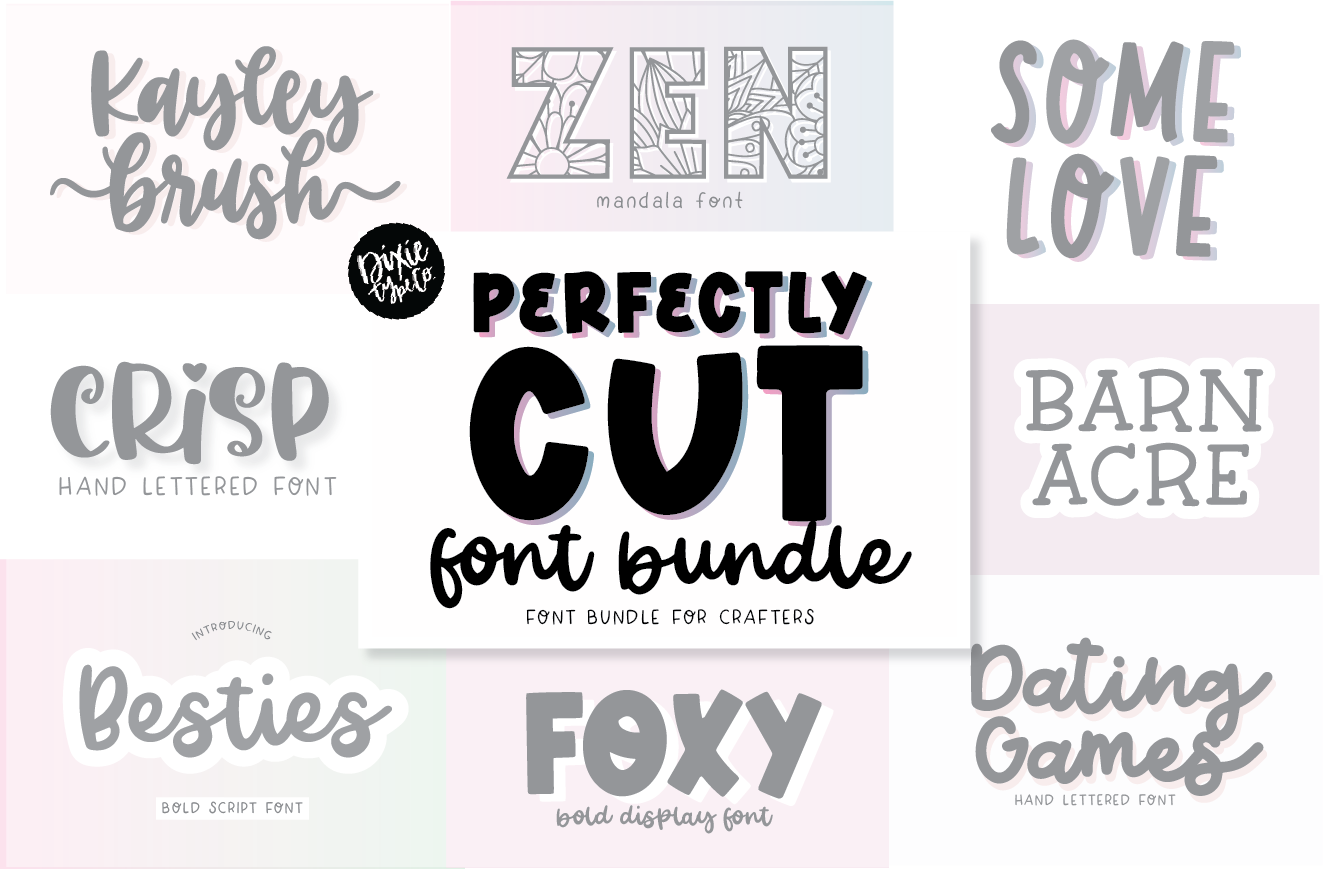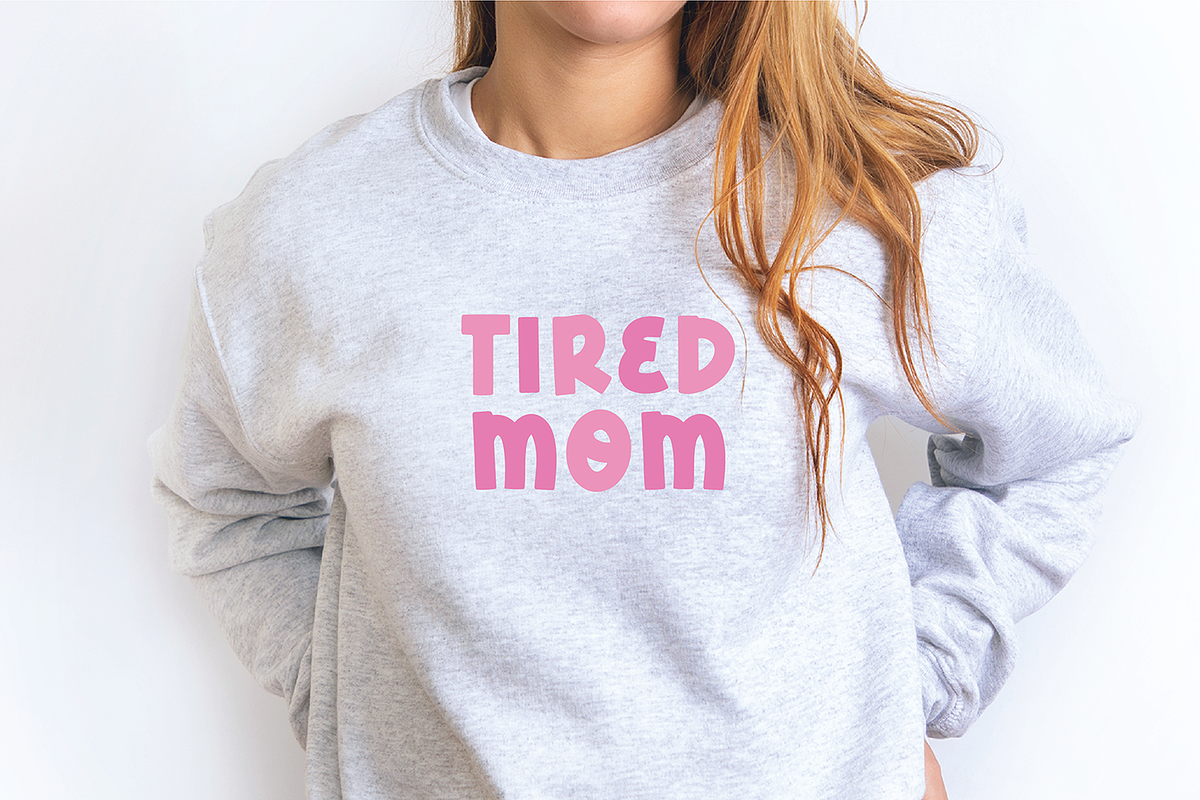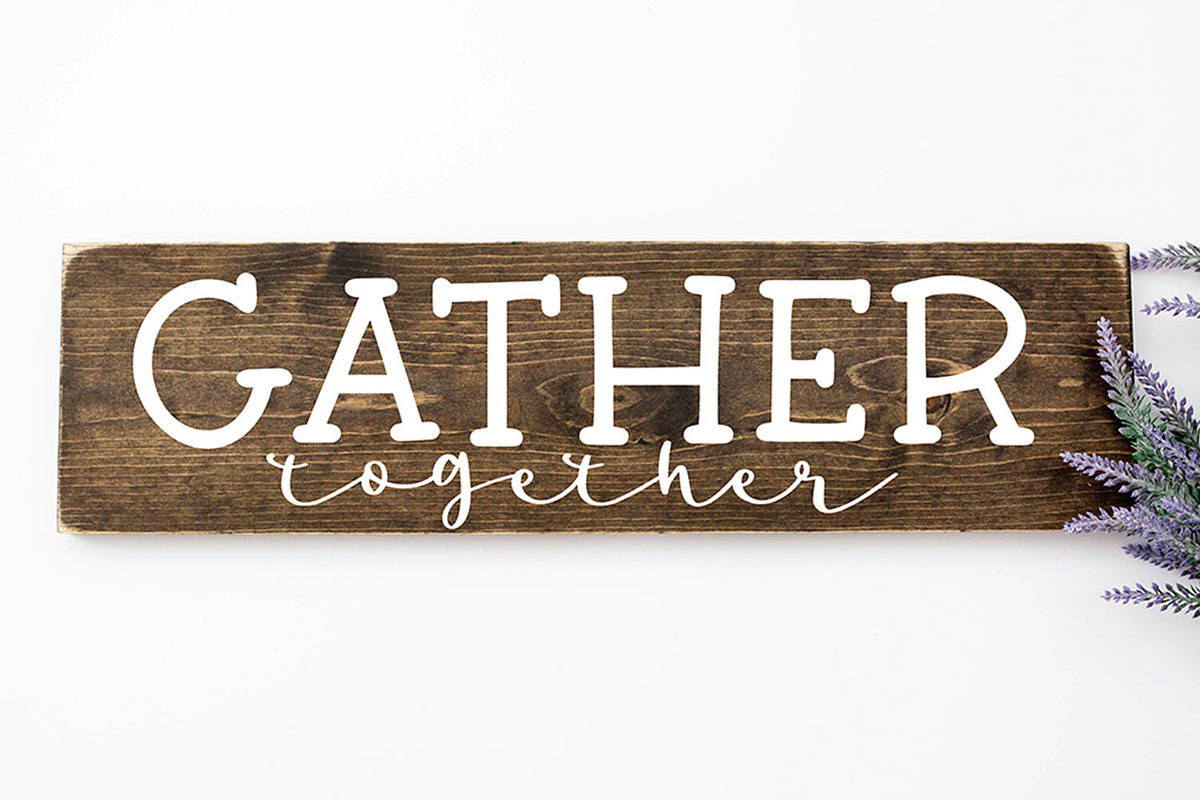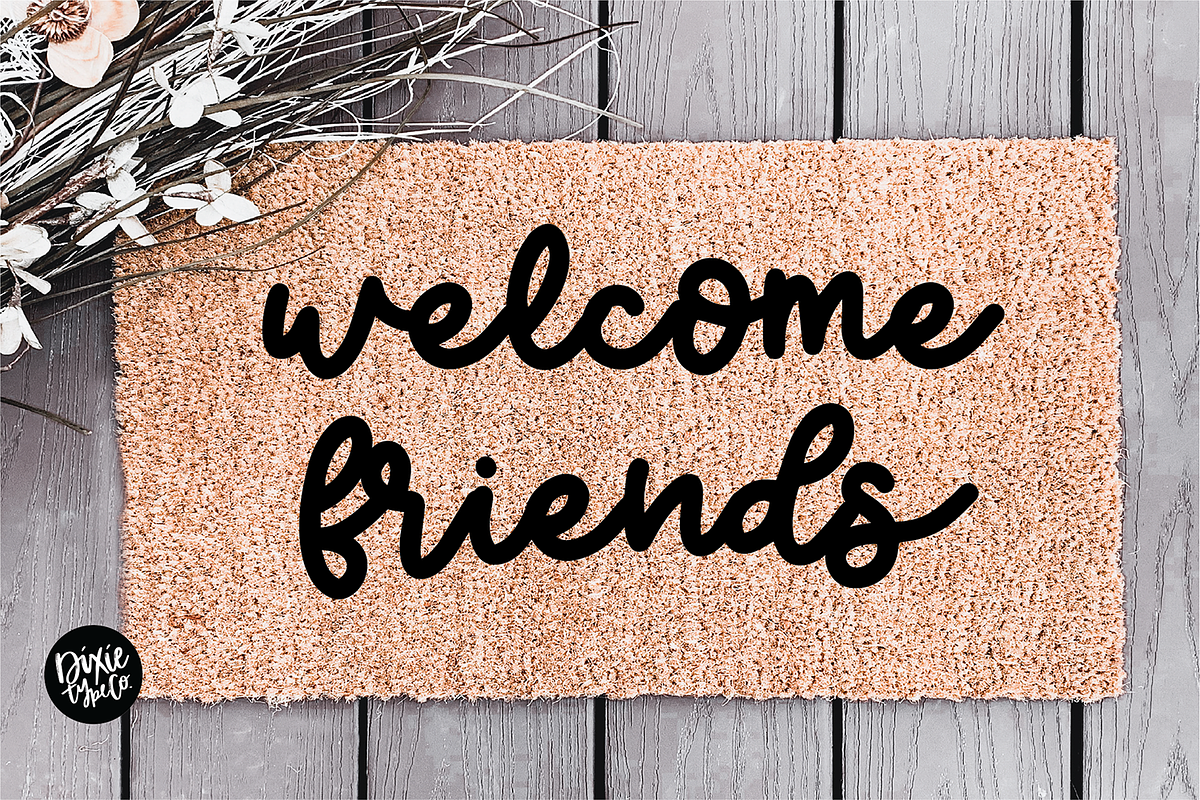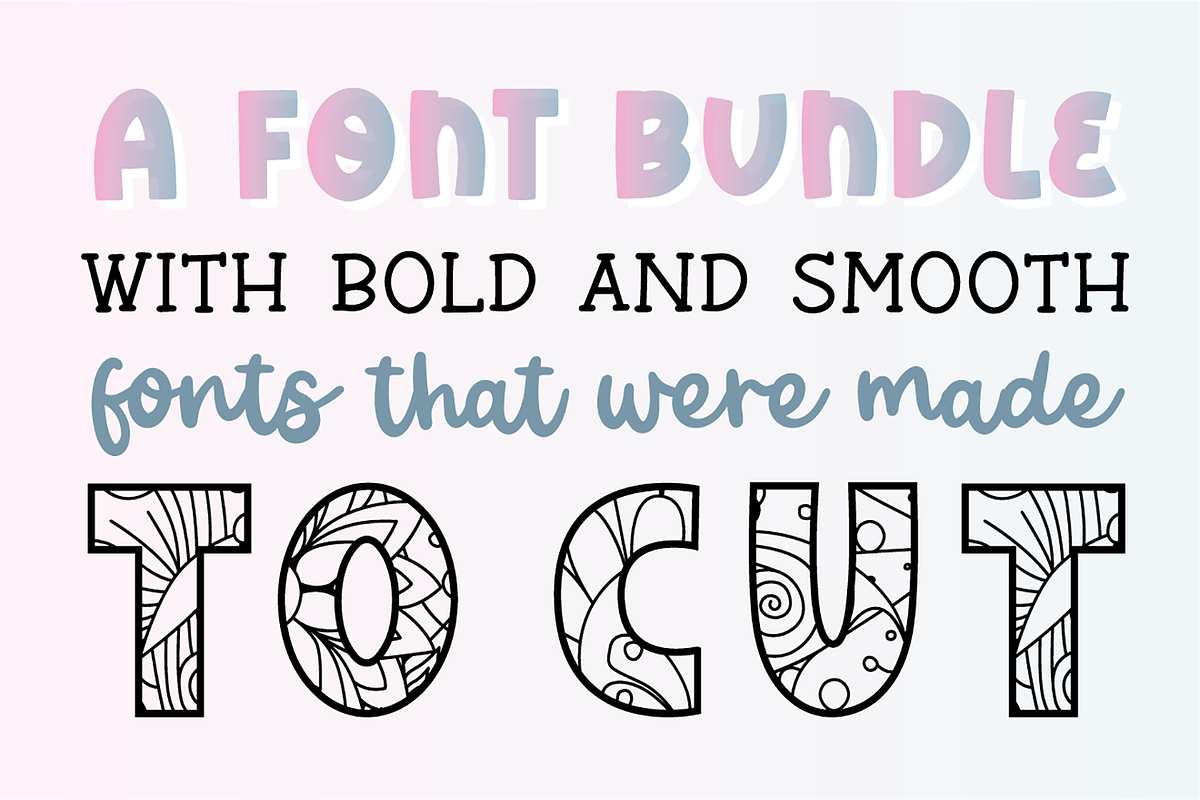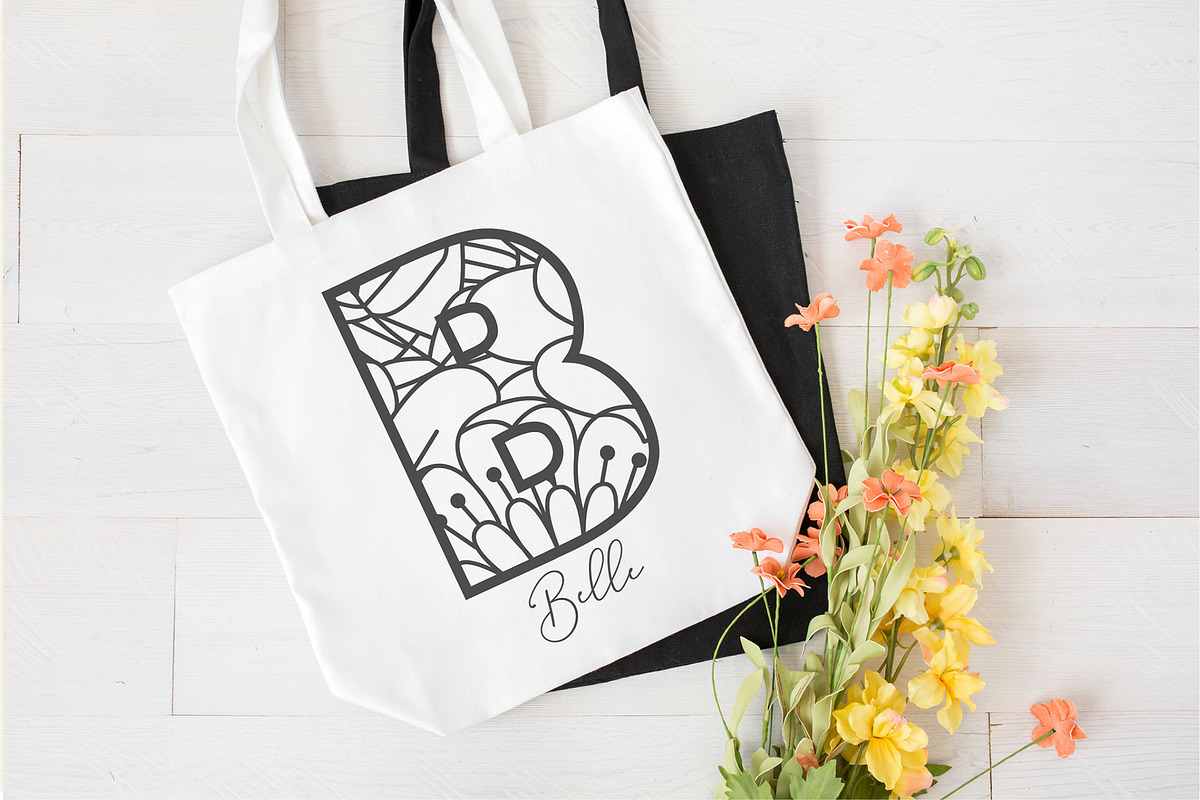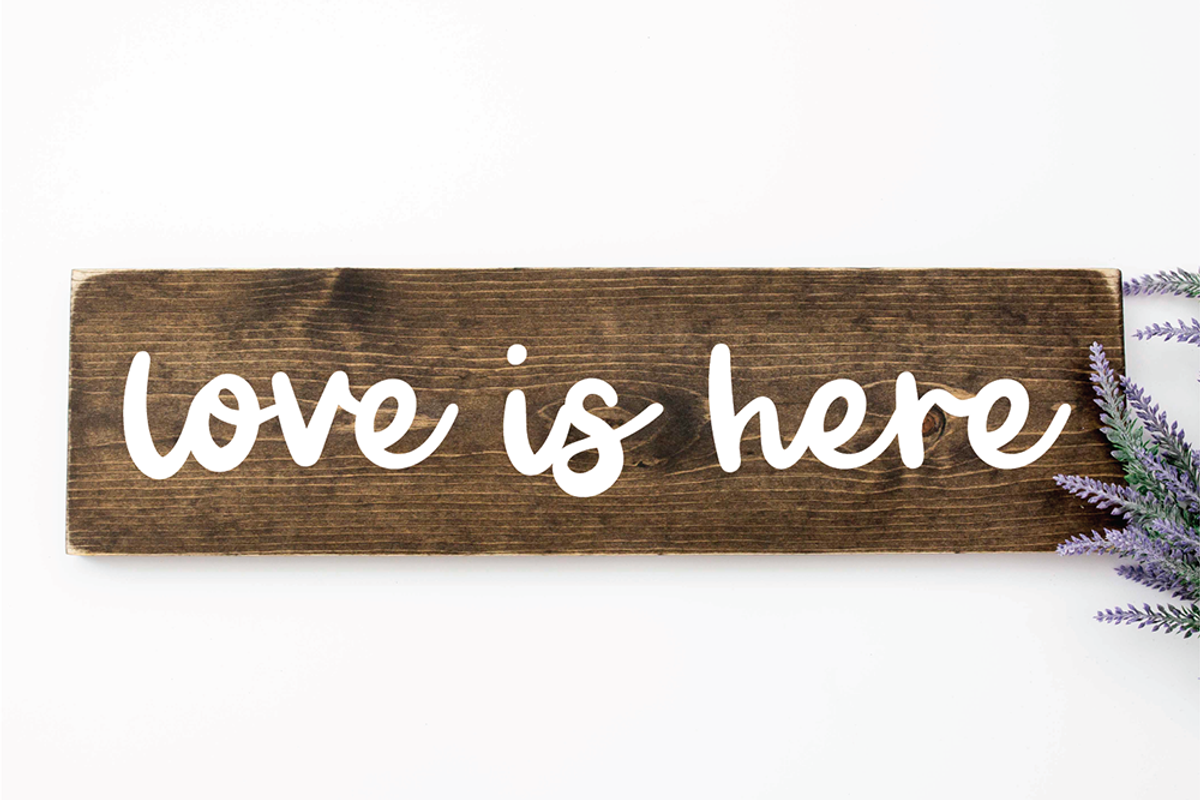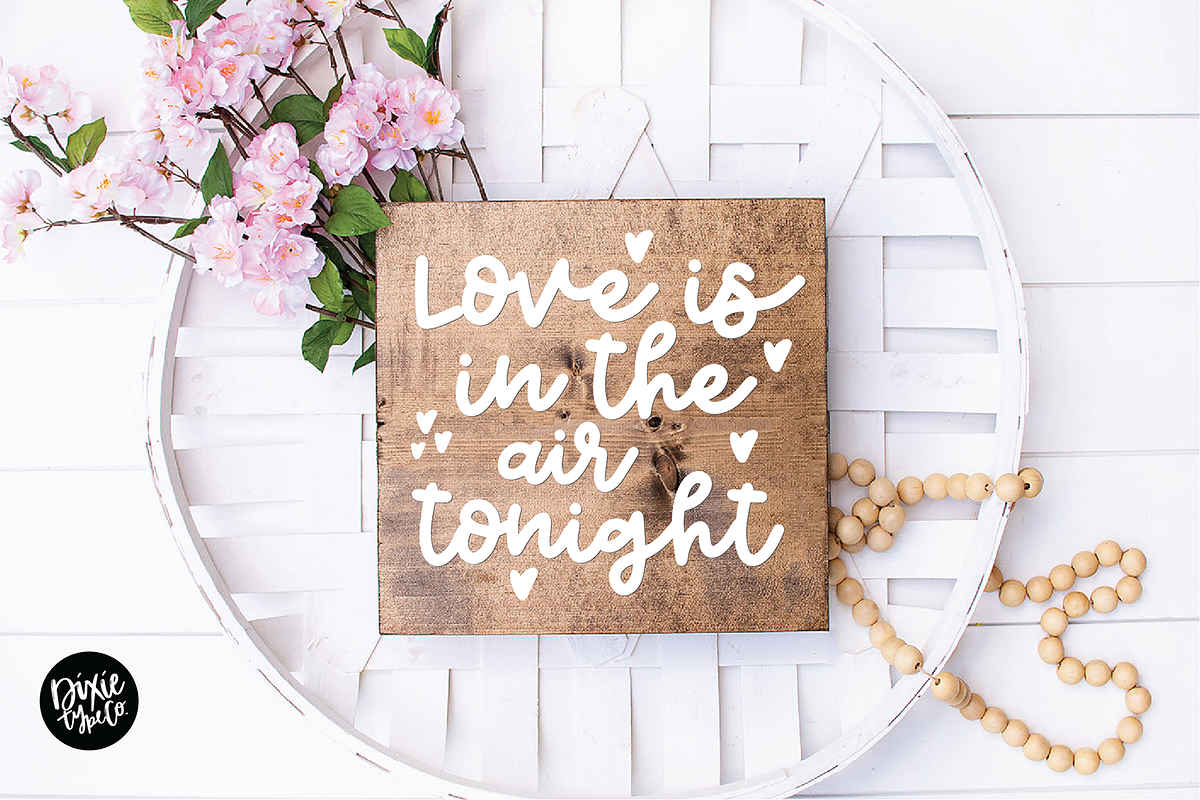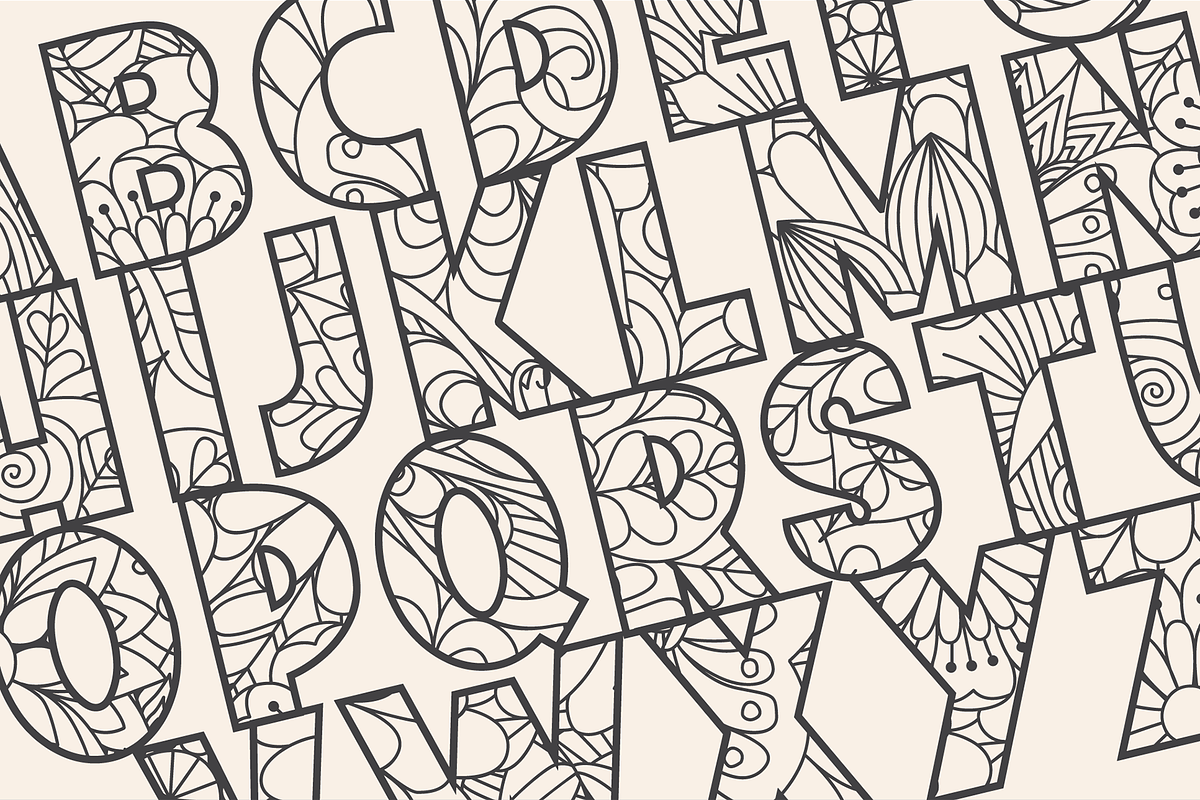
PERFECTLY CUT Crafters Font Bundle
PERFECTLY CUT BUNDLE Bold and smooth fonts made for Crafters
These fonts were all hand-lettered with a brush and ink, or iPad Pro.
The 8 fonts included are:
FOXY DATING GAMES BARN ACRE KAYLEY BRUSH ZEN OUTLINE CRISP BESTIES SOME LOVE